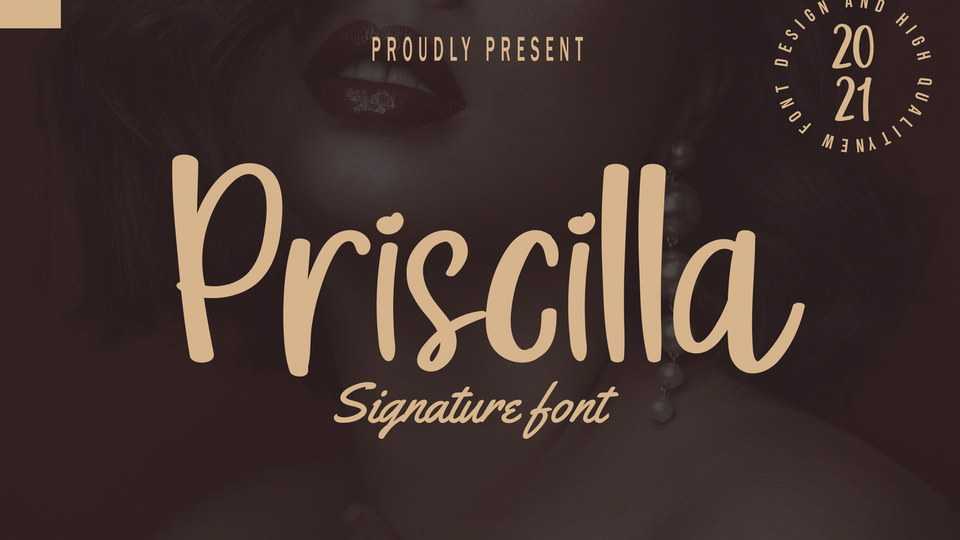
Download Priscilla font, a cute girly typeface. Chic and attractive, it has an outgoing personality. Priscilla will emphasize the cuteness and chic girly vibe that you want to have on your design.